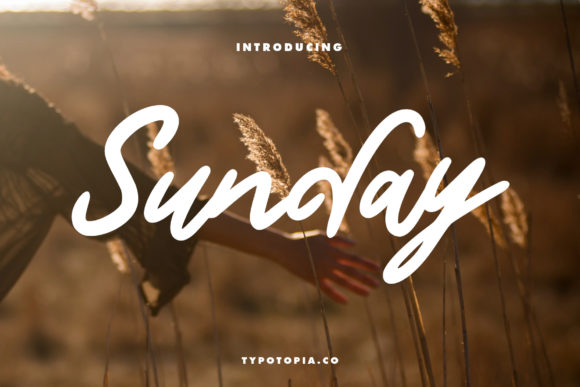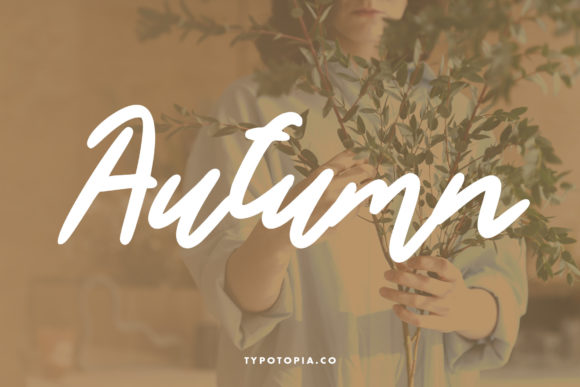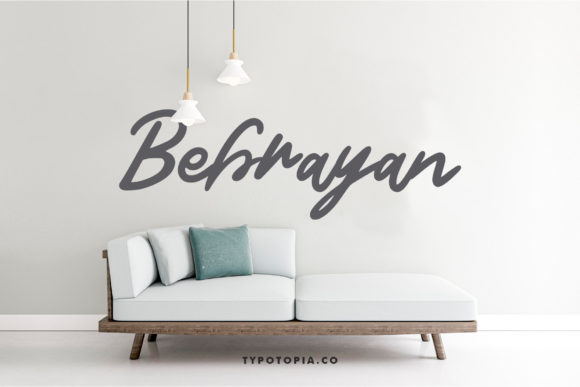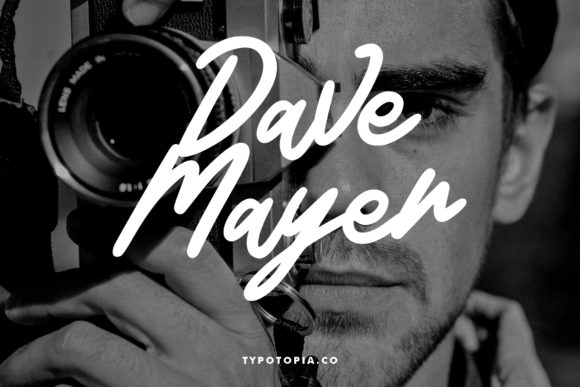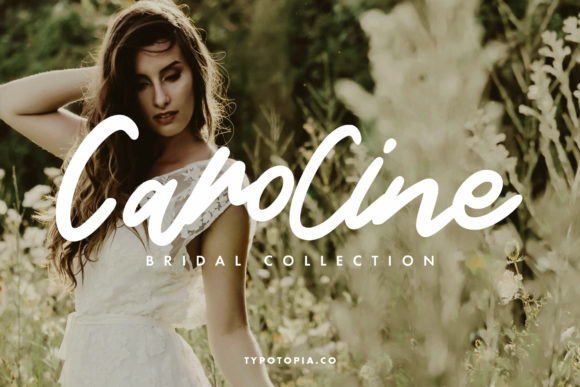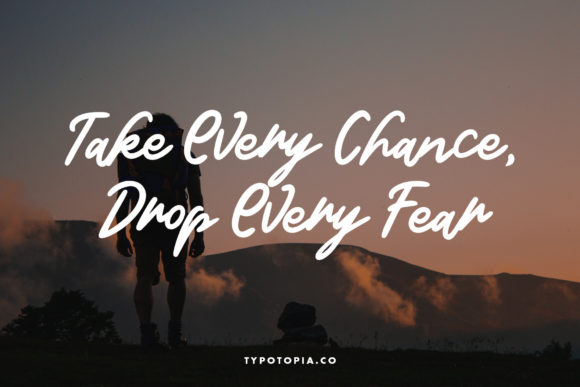
Sunday Font
About Sunday Font
Sunday is a cursive, chic and distinctly lettered script font. This paint brushed font will instantly make your designs more approachable and beautiful. The only limit is your imagination.